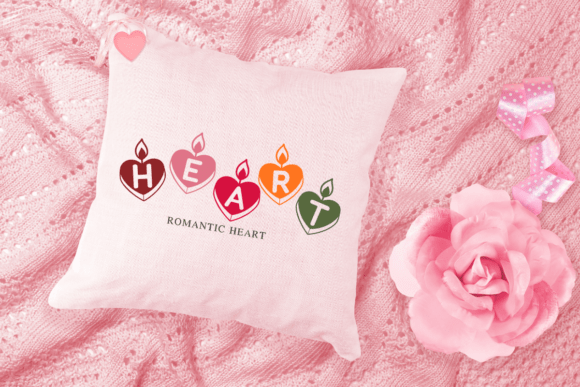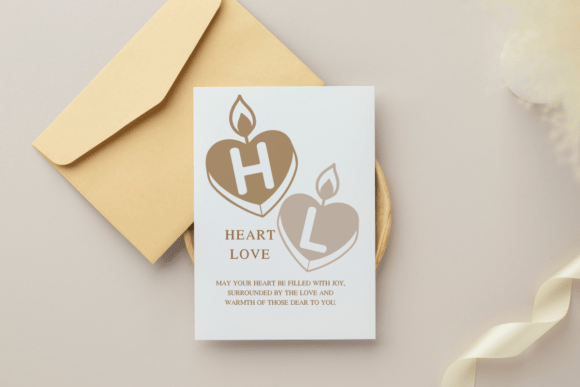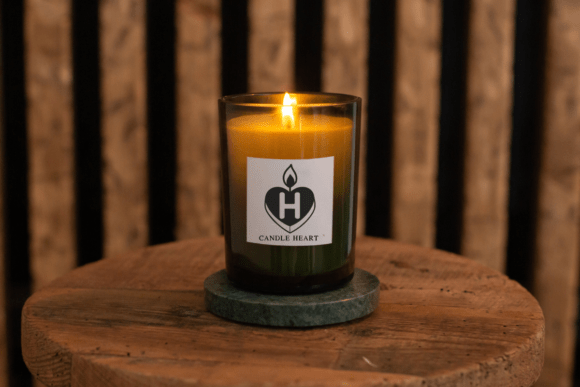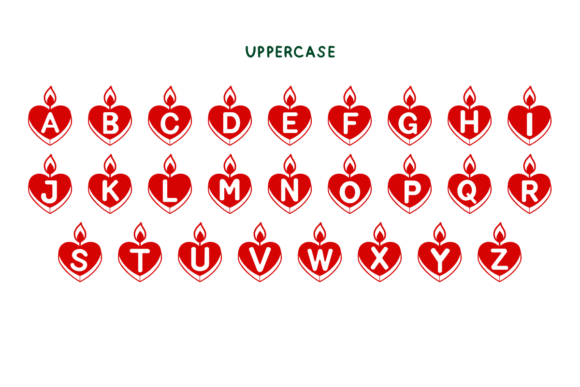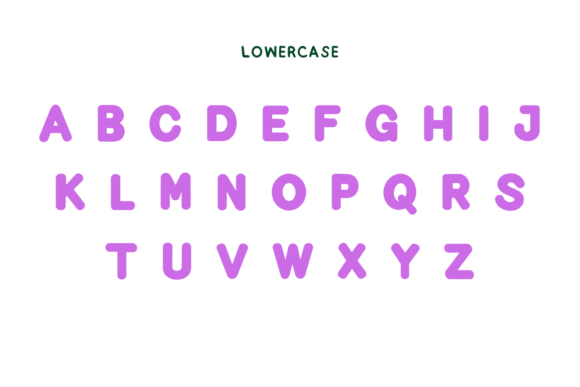
Introducing Candle Heart: The Ultimate Fusion of Aesthetics and Functionality
In the world of typography, few fonts manage to capture the essence of creativity and functionality as effortlessly as Candle Heart. This decorative font is not just a style; it’s an experience. With its captivating flair, Candle Heart breathes life into notes, diaries, and greeting cards, making them anything but ordinary. However, its appeal extends far beyond these traditional applications. Whether you’re a designer looking to elevate your projects or a crafter aiming to add a personal touch to your creations, Candle Heart is the perfect companion.
Aesthetic Appeal
Candle Heart’s design is a masterclass in elegance and charm. Each letter is crafted with precision, featuring delicate curves and a warm, inviting feel that evokes the soft glow of a candle. This font isn’t just about conveying a message; it’s about creating an atmosphere. When used in banners, it draws attention with grace. On mugs and shirts, it adds a touch of sophistication. In stationery and social media posts, it injects personality and warmth.
One of the standout features of Candle Heart is its incredible versatility. Designers and crafters can use it across a wide range of projects, including:
• Banners and Signage: Create eye-catching banners for events, sales, or promotions that are sure to captivate your audience.
• Custom Apparel: Add a personalized touch to t-shirts, hoodies, and hats, making each piece unique.
• Stationery and Invitations: Elevate your letters, invitations, and thank-you cards with a sophisticated yet warm aesthetic.
• Social Media Graphics: Stand out on social media platforms with custom graphics that incorporate Candle Heart for that extra creative flair.
• Branding: Use Candle Heart in your brand’s typography to convey a sense of warmth, elegance, and approachability.
Functionality for Designers and Crafters
While Candle Heart shines with its aesthetic appeal, it also understands the needs of designers and crafters. Its clear readability ensures that your message isn’t just beautiful but also effectively communicated. Here are some functionalities that make Candle Heart a go-to font:
• Easy to Read: Despite its decorative nature, Candle Heart maintains a level of readability that ensures your message gets across clearly.
• Scalability: Whether you’re working on a massive billboard or a tiny keychain, Candle Heart retains its charm and legibility.
• Customizable: Experiment with different colors, sizes, and effects to match your project’s mood and theme.
Bringing Your Ideas to Life with Candle Heart
The true power of Candle Heart lies in its ability to turn your ideas into visually stunning realities. Imagine being able to:
• Transform a simple diary into a luxurious keepsake.
• Turn a standard greeting card into a heartfelt gift.
• Make your social media posts stand out in crowded feeds.
• Create custom products that reflect your or your brand’s personality.
Candle Heart isn’t just a font; it’s a tool that unlocks a new level of creativity for designers, crafters, and anyone looking to add a personal touch to their projects. Its unique blend of aesthetics and functionality makes it an invaluable asset in your creative arsenal.
Candle Heart is more than just a decorative font; it’s a creative partner that helps you bring your vision to life. With its captivating design, versatile applications, and functional benefits, it’s poised to become your go-to for projects that demand a little extra elegance and charm. So, dare to imagine more, and let Candle Heart guide you in creating a world that’s beautifully written, one letter at a time.